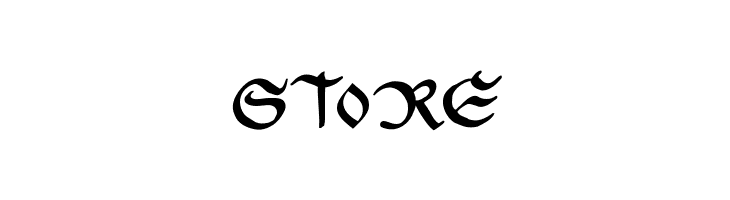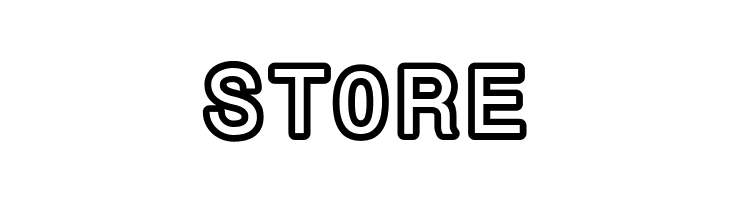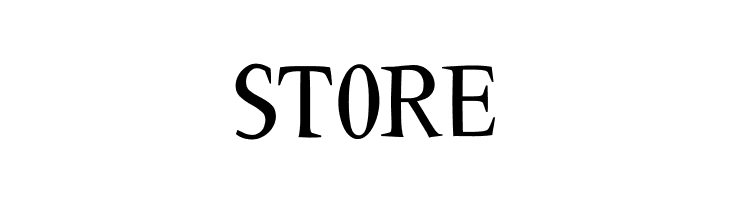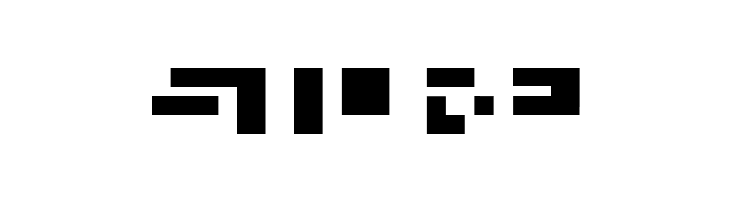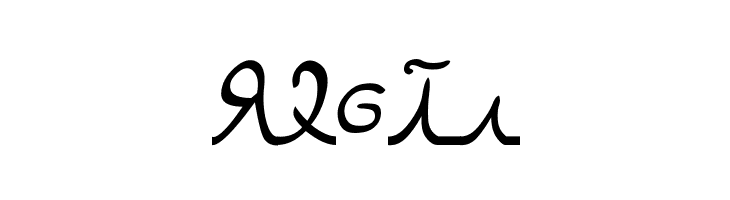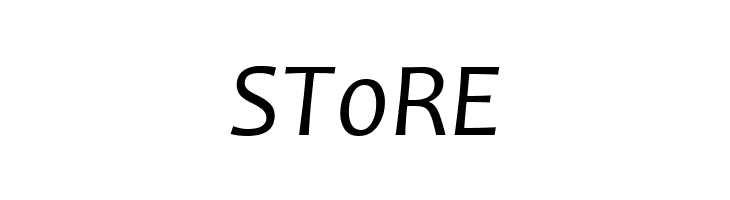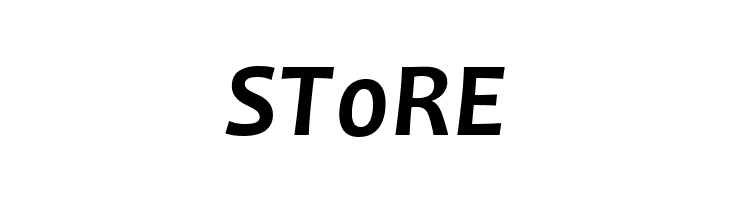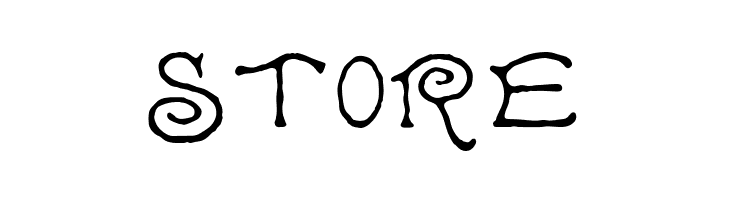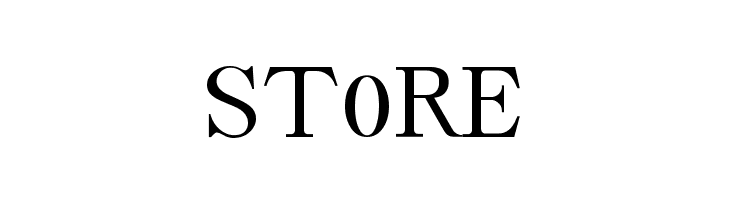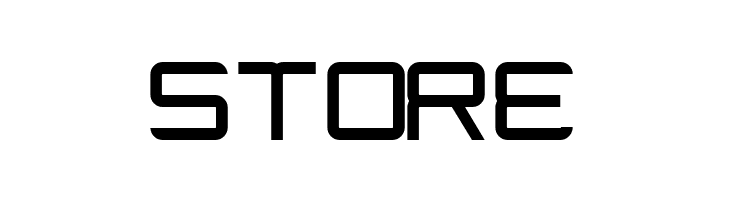
• Candara Bold Italic
• Candara Italic
• CantzleyAD1600
A classic Blackletter font with ornate, angular strokes and high contrast.
• Caprice
( George Williams - web.archive.org/web/20051223080638/bibliofile.mc.duke.edu/gww/fonts/fonts.html )
A whimsical, hand-drawn font with playful, irregular strokes and artistic flair.
• Caracterielle
• Caralhûnan Cursive
( Fonts by www.omniglot.com )
A flowing cursive font with interconnected strokes and a handwritten appearance.
• carbono
• Carbor
( Marc Clancy - www.marcclancy.com/ )
A futuristic, geometric font with consistent stroke width and angular shapes.
• Carissma
A classic serif font with elegant, elongated letterforms and medium contrast.
• Caslon-Bold
( George Williams - web.archive.org/web/20051223080638/bibliofile.mc.duke.edu/gww/fonts/fonts.html )
A bold, classic serif font with pronounced serifs and slight stroke contrast.